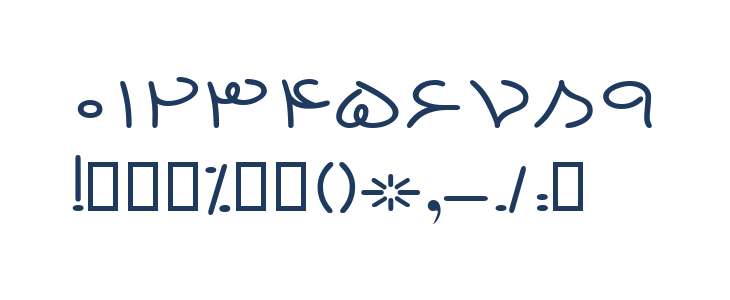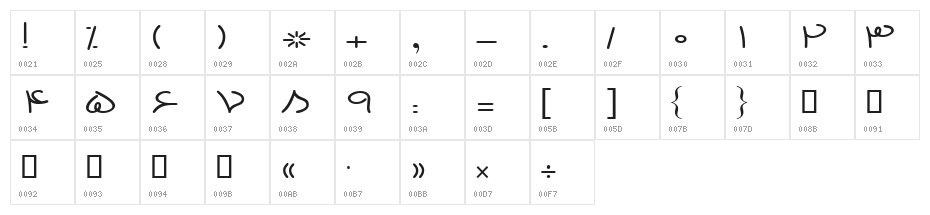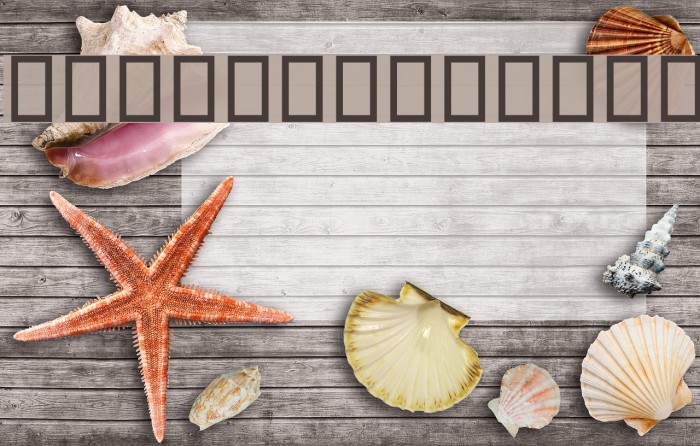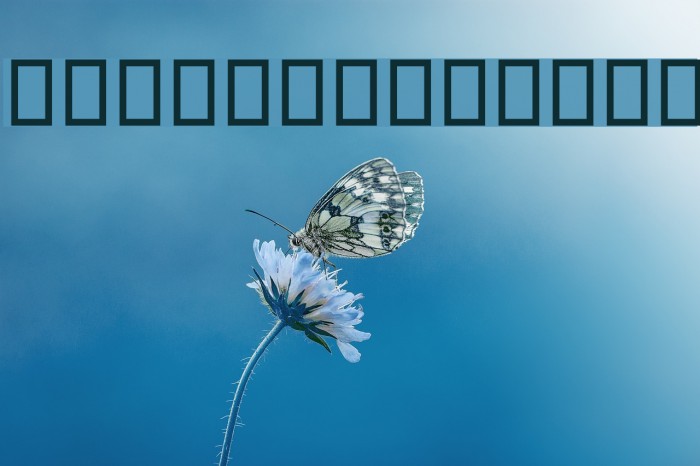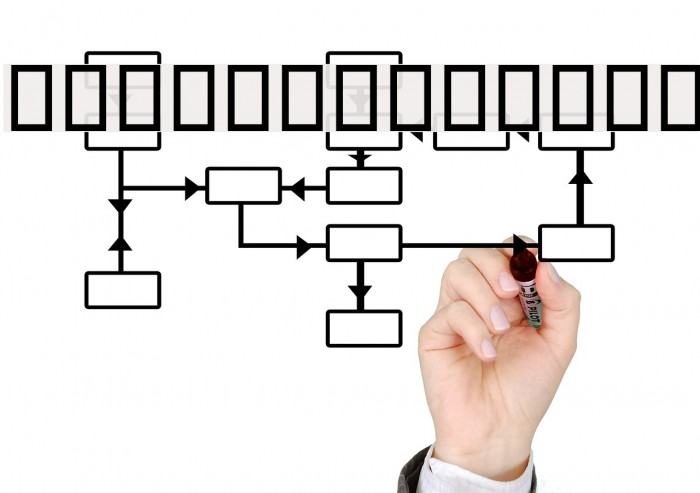
Destkhat VI Bold Font
Destkhat VI Bold Description
This font features a unique and artistic design, characterized by its bold and expressive strokes. The characters exhibit a playful and dynamic style, with a distinct handwritten quality that adds a personal touch. The numbers and special characters maintain the same lively aesthetic, ensuring consistency across all elements. The font's overall appearance is both modern and creative, making it suitable for projects that require a touch of individuality and flair.
| Use Case | Headlines, Logos, Artistic designs |
| Proposed Projects | Ideal for creative projects such as posters, invitations, branding, and artistic designs where a personal and dynamic touch is desired. |